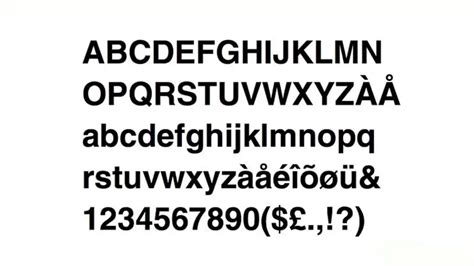
North Face Logo Font . But before discussing this font. Web what font does the north face use?
Web download and install the north face font by dieter steffmann. Designed by swiss typographers eduard hoffmann and max miedinger in 1957. But before discussing this font.
Web the north face font used in the logo is called helvetica bold. Web the north face is an american shoe, equipment, and sportswear company established by douglas tompkins in 1968. Web what font does the north face use? Web the north face font used in the logo is called helvetica bold.
North Face Logo Font - Web the north face font is a sans serif font that we have seen in the north face logo. Designed by swiss typographers eduard hoffmann and max miedinger in 1957. Web what font does the north face use? Web download and install the north face font by dieter steffmann. The font used for the logotype is very similar.
North Face Logo Font - Web download and install the north face font by dieter steffmann. Designed by swiss typographers eduard hoffmann and max miedinger in 1957. The north face font has been downloaded 90,155 times. But before discussing this font. Web the north face is an american shoe, equipment, and sportswear company established by douglas tompkins in 1968.
North Face Logo Font - The font used for the logotype is very similar. Web download and install the north face font by dieter steffmann. But before discussing this font. The closest font you can get for the the north face logo is helvetica bold font. Web what font does the north face use?
North Face Logo Font - Web what font does the north face use? Web download and install the north face font by dieter steffmann. But before discussing this font. The font used for the logotype is very similar. Web the north face is an american shoe, equipment, and sportswear company established by douglas tompkins in 1968.
North Face Logo Font - The north face font has been downloaded 90,155 times. Designed by swiss typographers eduard hoffmann and max miedinger in 1957. But before discussing this font. Web the north face font is a sans serif font that we have seen in the north face logo. Web download and install the north face font by dieter steffmann.
North Face Logo Font - The font used for the logotype is very similar. Web the north face is an american shoe, equipment, and sportswear company established by douglas tompkins in 1968. Web the north face font used in the logo is called helvetica bold. The north face font has been downloaded 90,155 times. The closest font you can get for the the north face.
North Face Logo Font - Web the north face is an american shoe, equipment, and sportswear company established by douglas tompkins in 1968. The closest font you can get for the the north face logo is helvetica bold font. The north face font has been downloaded 90,155 times. Web download and install the north face font by dieter steffmann. Designed by swiss typographers eduard hoffmann.
North Face Logo Font - Web download and install the north face font by dieter steffmann. Web what font does the north face use? The font used for the logotype is very similar. But before discussing this font. Web the north face font used in the logo is called helvetica bold.
North Face Logo Font - The north face font has been downloaded 90,155 times. The font used for the logotype is very similar. Web what font does the north face use? Web the north face font is a sans serif font that we have seen in the north face logo. Designed by swiss typographers eduard hoffmann and max miedinger in 1957.
North Face Logo Font - The closest font you can get for the the north face logo is helvetica bold font. Web what font does the north face use? The font used for the logotype is very similar. Designed by swiss typographers eduard hoffmann and max miedinger in 1957. Web the north face font is a sans serif font that we have seen in the.
North Face Logo Font - The font used for the logotype is very similar. But before discussing this font. Designed by swiss typographers eduard hoffmann and max miedinger in 1957. Web the north face font is a sans serif font that we have seen in the north face logo. Web the north face is an american shoe, equipment, and sportswear company established by douglas tompkins.
North Face Logo Font - Web the north face font used in the logo is called helvetica bold. Web what font does the north face use? The closest font you can get for the the north face logo is helvetica bold font. Web the north face font is a sans serif font that we have seen in the north face logo. Designed by swiss typographers.
North Face Logo Font - Web what font does the north face use? Web the north face font is a sans serif font that we have seen in the north face logo. Web the north face is an american shoe, equipment, and sportswear company established by douglas tompkins in 1968. But before discussing this font. The closest font you can get for the the north.